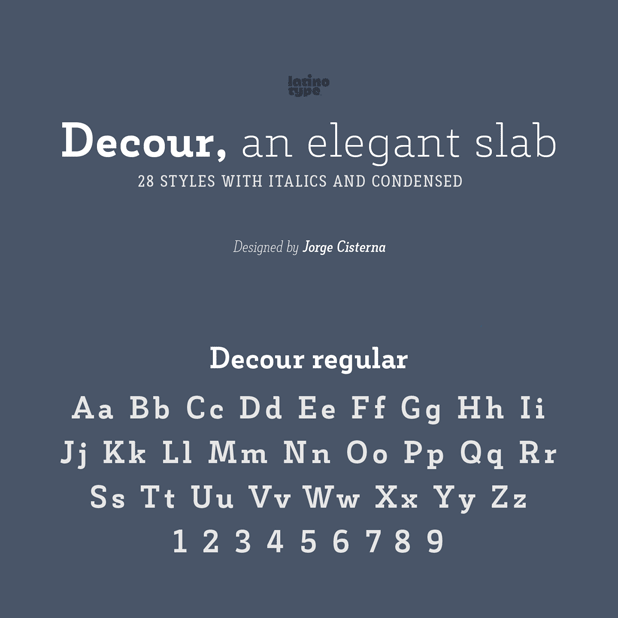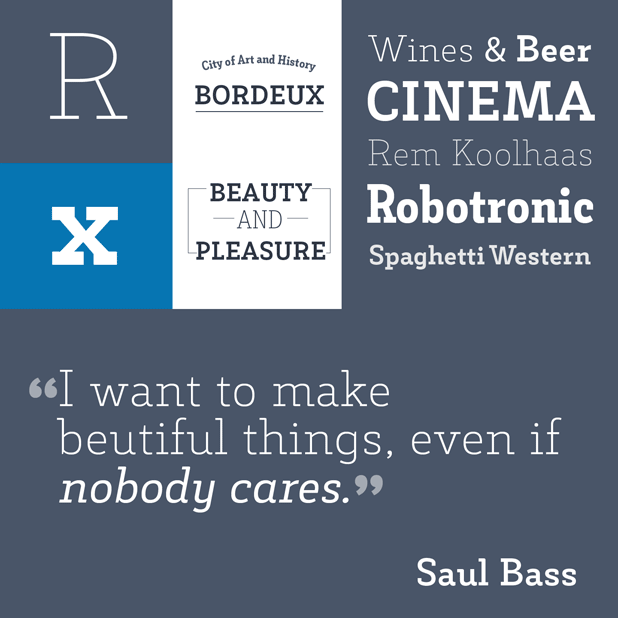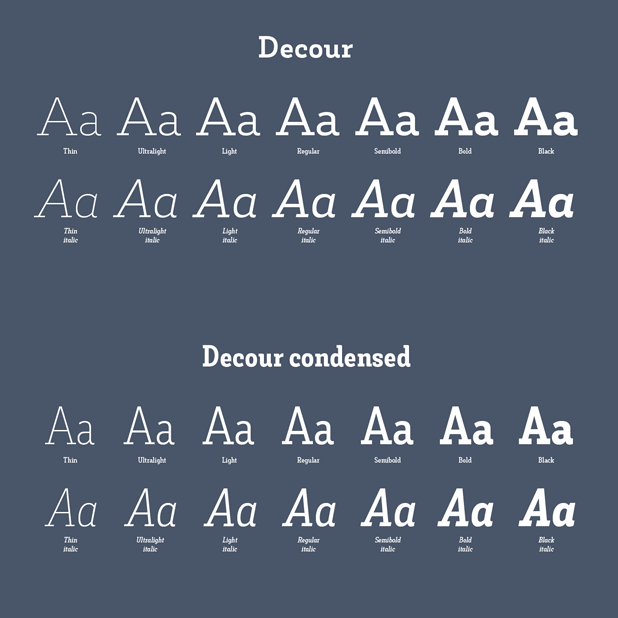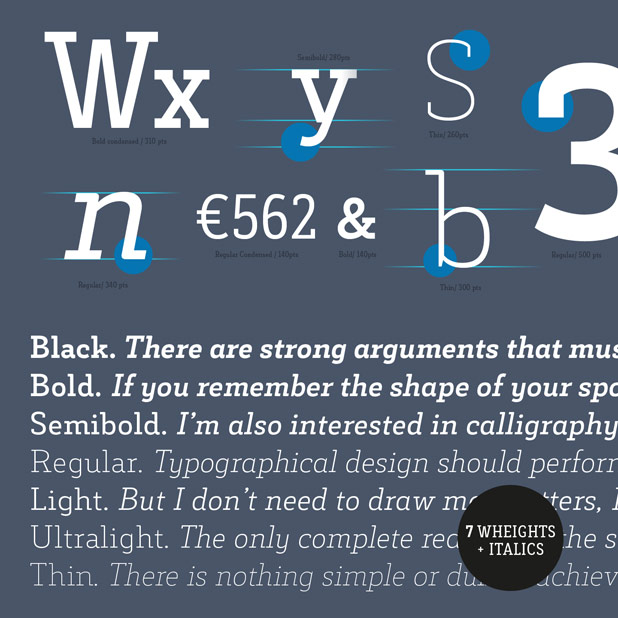
Decour Font Family from Latinotype
The Decour font family, an elegant slab serif typeface from Latinotype.
Decour is another great font family in a line of sans serif typefaces from foundry Latinotype. Jorge Cisterna, a Chilean graphic and type designer has created the Decour font family in 2015. The typeface is characterized by a low contrast between thick and thin strokes as well as a touch of Art Deco design. A strong height difference between lower cases and uppercase letters is another striking feature of this typeface. This expressive font family with its 28 styles (including italics and condensed versions) works great for headings, subheadings and short text sections.
Decour is an elegant slab serif typeface from Latinotype that comes in 28 styles with italics and condensed versions.
Some decorative type samples of this distinctive slab serif font family.
The normal and the condensed version of the Decour font family by Jorge Cisterna of foundry Latinotype.
A beautiful typeface that works great for both headlines and text.